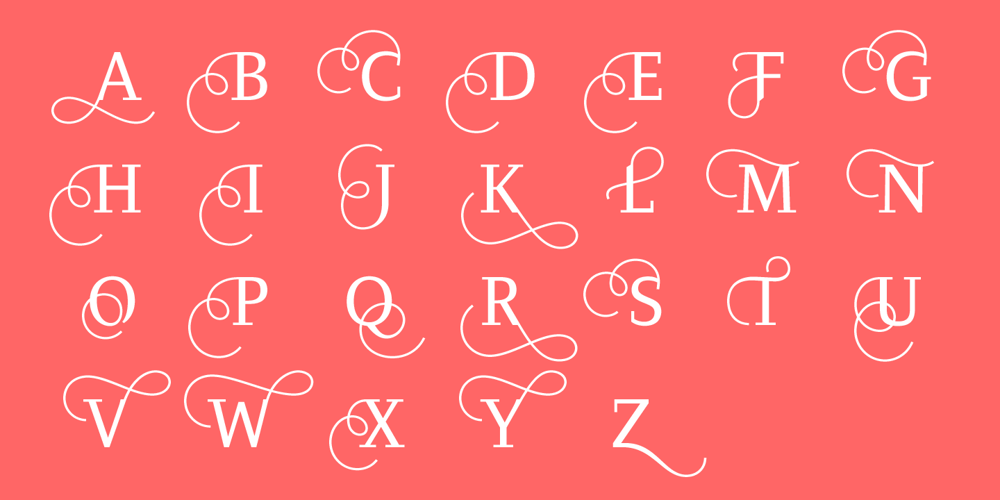
Diogenes Decorative Font Family was designed by Ludwig Übele and published by Ludwig Type. Diogenes Decorative contains 35 styles and family package options. Diogenes Decorative is the swashy sister of Diogenes, an elegant and crisp text typeface. It comes in 5 weights, each containing 7 different fonts with lots of swash characters, alternates and separate swashes which fit on different characters. Diogenes Decorative can be used independently or in combination with Diogenes, e.g. for initials or headlines.